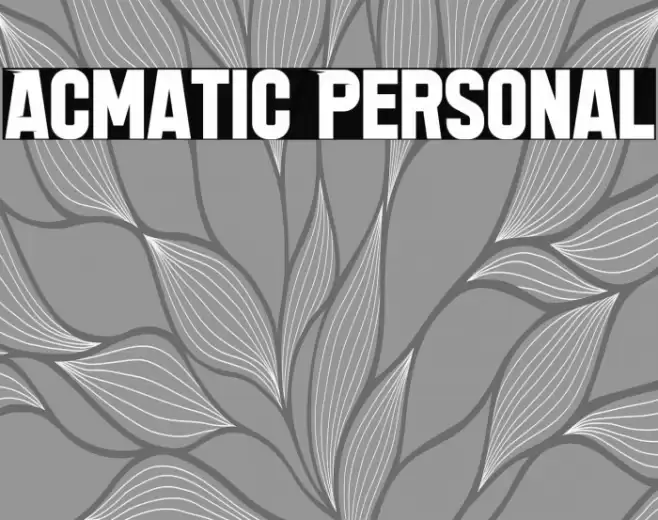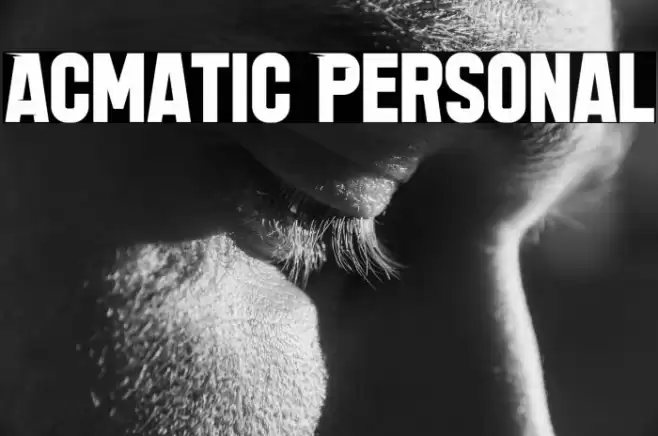
Acmatic Personal Font
Acmatic Personal Description
This font features a bold and impactful design with a strong presence. The uppercase letters are characterized by sharp, angular lines and a slightly condensed form, giving them a modern and assertive look. The strokes are thick and consistent, providing a high level of contrast that enhances readability and visual impact. The font's style is reminiscent of industrial or futuristic themes, making it suitable for projects that require a bold statement. The overall design is clean and uncluttered, with a focus on geometric shapes and a uniform appearance across all characters.
A bold, modern font with sharp, angular lines and high contrast from Uncategorized fonts.
- Proposed Projects: Ideal for headlines, posters, branding, and any design that requires a strong visual impact.